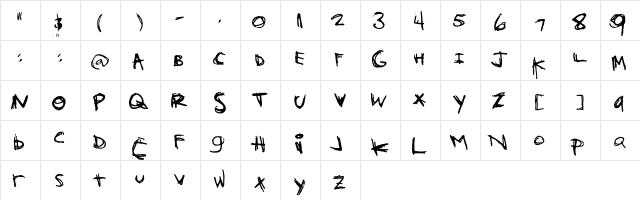
Orange Book Regular
Design Context for Orange Book Typeface
Orange Book is a composed and adaptable typeface that performs quietly and consistently across a wide range of design contexts.